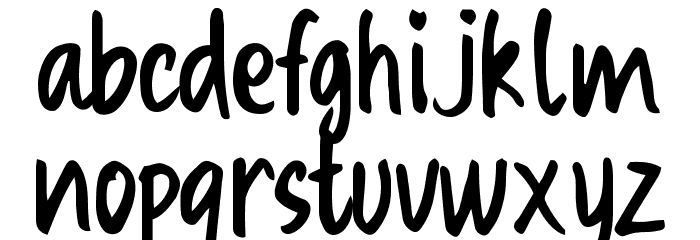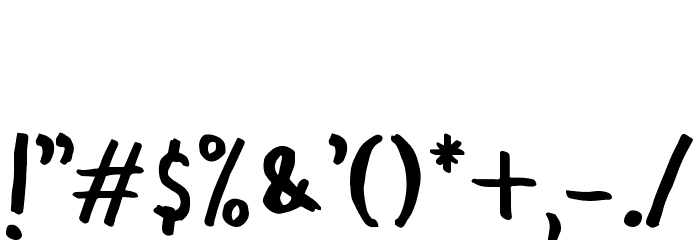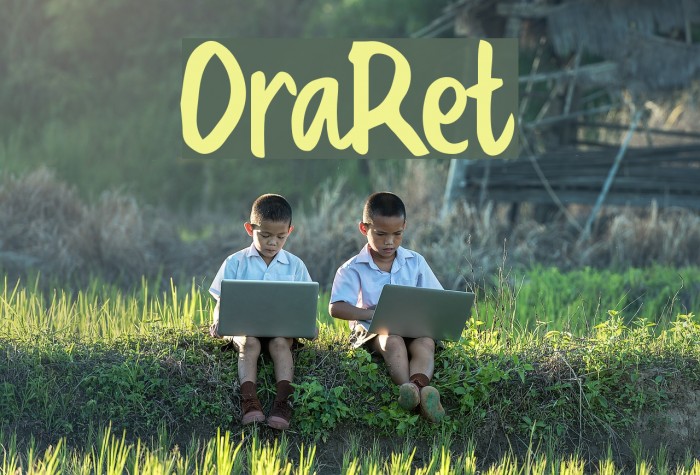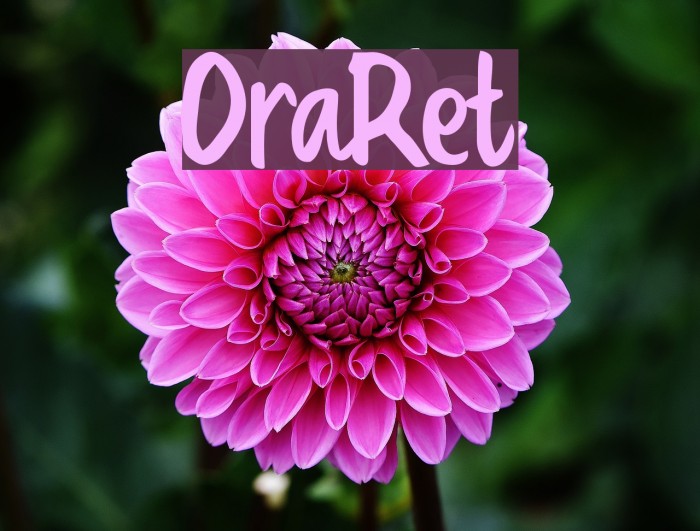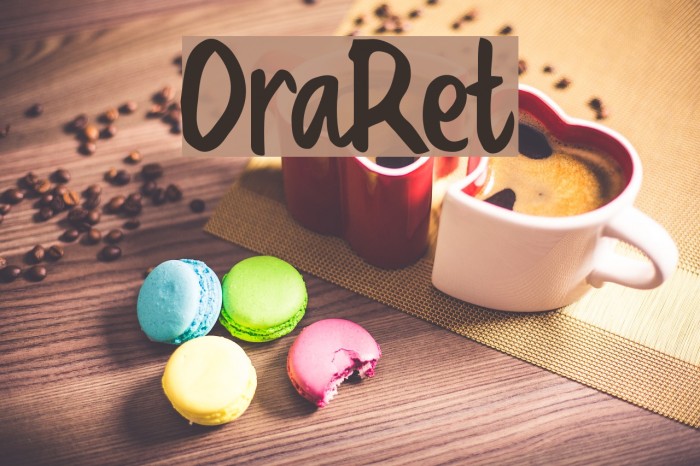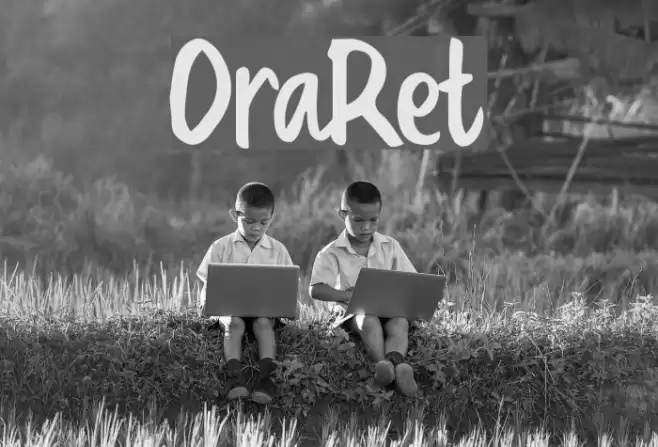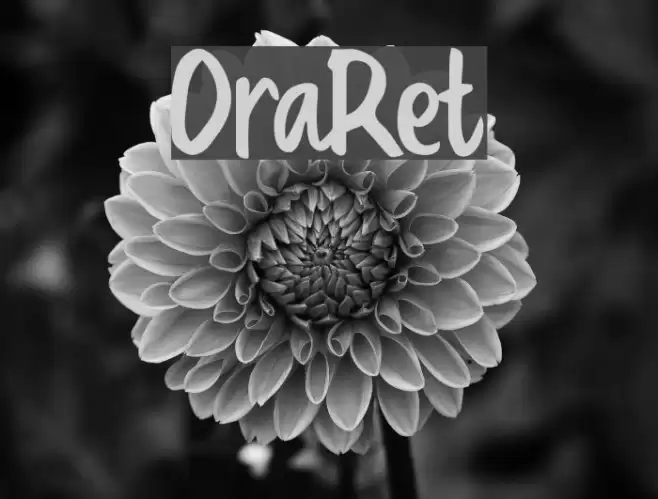
OraRet Font
This font features a bold and playful handwritten style, characterized by its thick strokes and slightly irregular letterforms that convey a sense of spontaneity and creativity. The uppercase and lowercase letters maintain a consistent flow, with rounded edges and a casual appearance. The numerals and special characters complement the alphabet with similar boldness and style, making it suitable for projects that require a personal touch. Its informal and friendly vibe makes it ideal for creative and artistic designs.
A bold, playful handwritten font with thick strokes and a casual style.
- Proposed Projects: Ideal for greeting cards, children's books, playful branding, and creative posters.
- Overall Style: Playful, Casual